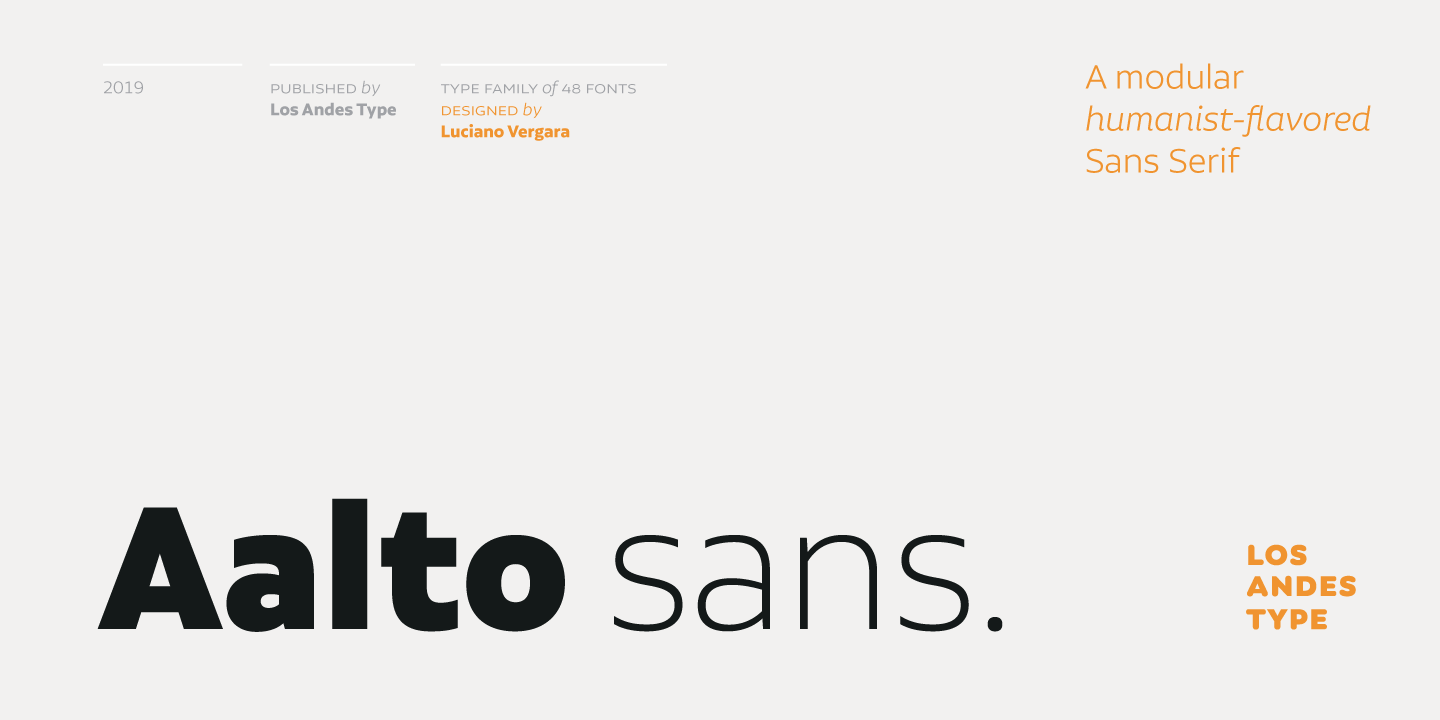
Aalto Sans Font is ideal for modern architecture firms, Scandinavian design studios, minimalist furniture brands, contemporary art galleries, Finnish cultural materials, modernist exhibition catalogs, clean corporate identities, innovative product designs, Nordic lifestyle brands, and progressive institutional communications.
What makes Aalto Sans Font exciting is its architectural elegance and Scandinavian sophistication that captures the essence of modernist design with functional beauty and Nordic refinement. This distinguished typeface embodies the spirit of architectural innovation with its clean character forms and design-inspired proportions that evoke flowing curves of iconic modernist buildings, birch forests reflected in pristine Finnish lakes, and the kind of functional elegance that defines Scandinavian design philosophy. The font's architectural character creates an immediate impression of sophisticated simplicity and the kind of timeless modernism that transcends passing trends.
Aalto Sans Font family includes regular weight with architecturally crafted character designs featuring modernist curves and Scandinavian proportions. The typeface maintains exceptional readability while showcasing its distinctive Nordic personality through elegantly designed letterforms that reflect the clean aesthetics and functional philosophy that characterizes excellent Scandinavian design.
Design professionals consistently select Aalto Sans Font Free Download for projects requiring authentic Nordic appeal and modernist credibility. This remarkable typeface brings the elegance of Scandinavian design to brand communications, combining architectural aesthetics with functional sophistication to create memorable modernist experiences. The architecturally designed characters ensure sophisticated positioning across all applications, making it essential for design studios, architectural firms, and any organization seeking to communicate the timeless elegance and functional beauty that defines authentic Scandinavian modernism through Aalto Sans Font Free Download.